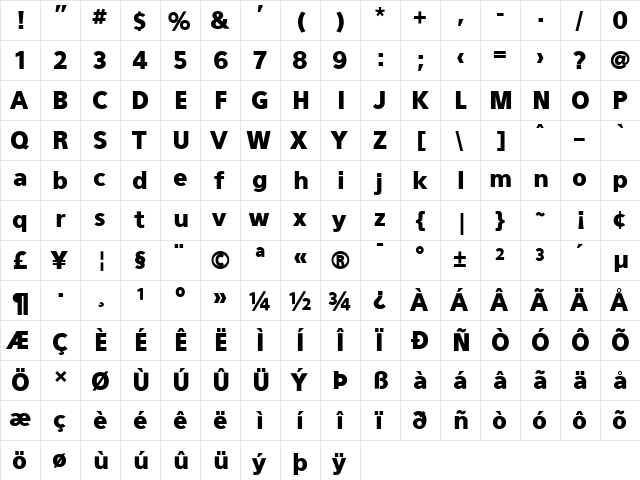
Eau Sans Black
| Style | Sans Black |
| Foundry | YOFonts |
| Designer | Yamaoka Yasuhiro |
Design Context for Eau Typeface
Eau is a composed and adaptable typeface that performs quietly and consistently across a wide range of design contexts.